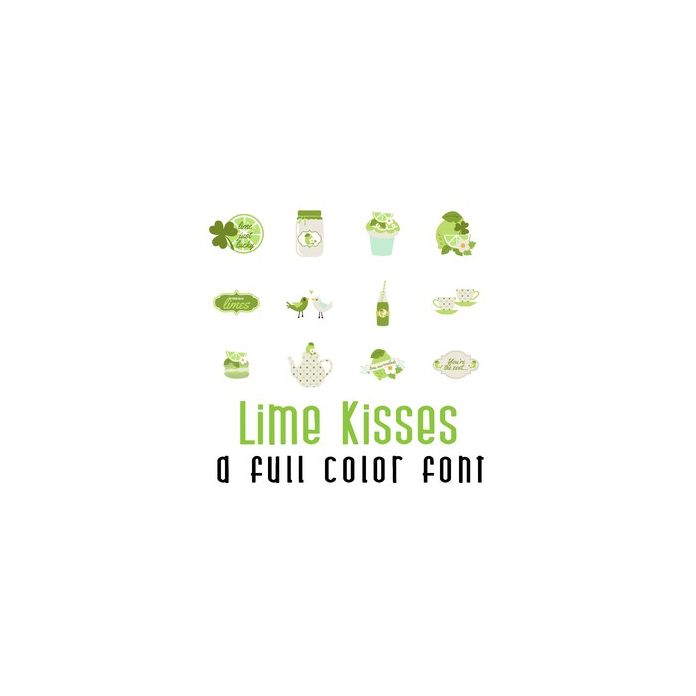
This adorable full-color doodlebat font features 26 beautiful lime themed desserts and drinks. Perfect for cards, crafts, gifts, decor, scrapbook pages, planner stickers, any green celebration like St. Patrick's Day, and more!